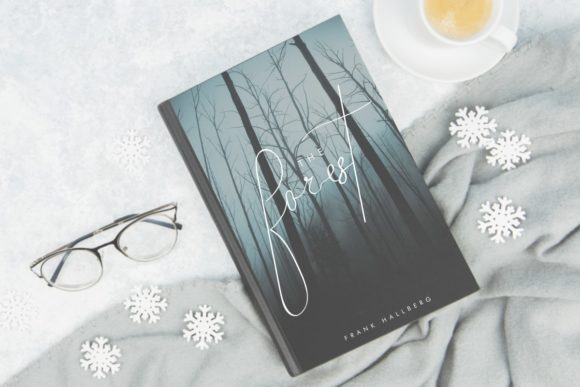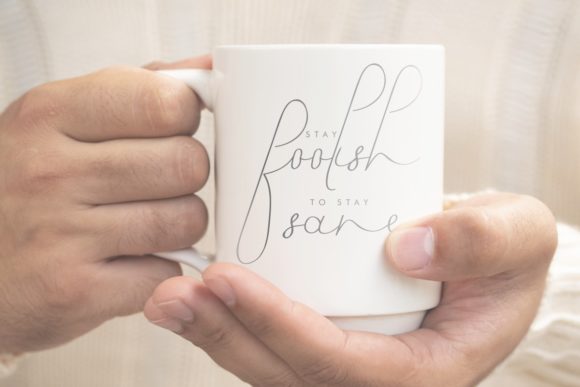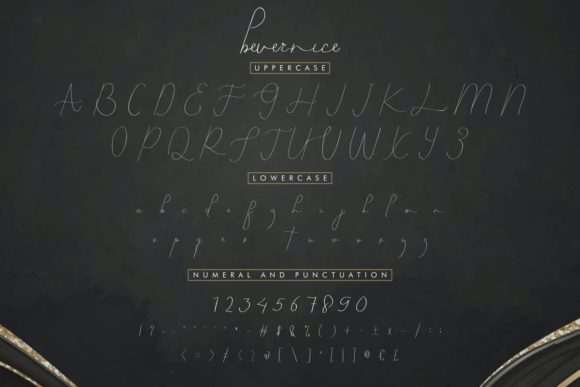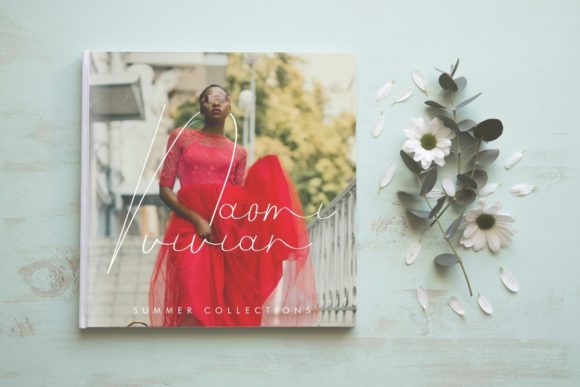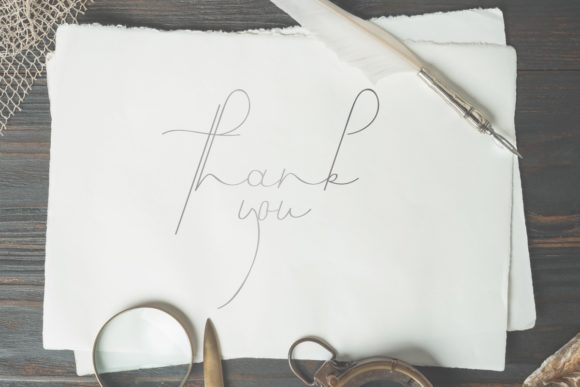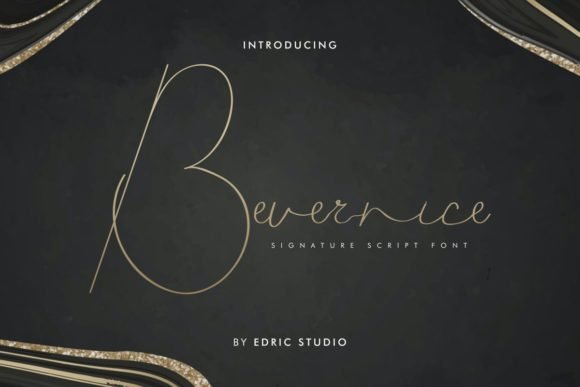
Have you ever been brainstorming a new design concept, and suddenly, a beautiful, delicate font pops into your head, guiding the entire direction of your project? That’s exactly what happened to me when I first discovered the Bevernice Font. Its smooth curves and thin lines instantly transported me to a world of high-end fashion and editorial elegance.
The Bevernice Font is a stunning script font, designed to add a touch of sophistication to any design. With its versatility, it’s perfect for fashion branding, editorial designs, and even wedding invitations. What sets it apart is its delicate nature, making it an ideal choice for designers who want to convey refinement and poise.
Add the Bevernice Font to your next project, and you’ll be amazed at the results. Its value lies in its ability to elevate your designs to a new level of sophistication, making it a must-have for any serious designer.
Bevernice Font Key Features
- Size: 7 styles (Regular, Light, Italic, Bold, Bold Italic, Extra Bold, Extra Bold Italic)
- Unique Characteristics: Elegant, modern design with a unique blend of sophistication and playfulness, suitable for various applications such as logos, headlines, and body text.
- Font Style: Elegant Script, Modern
- Language Support: Multilingual support, including Latin-based languages and Cyrillic-based languages
Bevernice Font Review
Overall, I think the Bevernice Font has some great qualities that make it a solid choice for designers. ✨
- Unique aesthetic: The Bevernice Font has a distinct, elegant feel that sets it apart from other fonts.
- High-resolution quality: The font is designed to look crisp and clear at high resolutions, making it perfect for large-scale designs.
- Wide language support: Bevernice Font supports a wide range of languages, making it a versatile choice for designers working on international projects.
- Limited bold and italic styles: While the font has a good range of weights, the bold and italic styles are somewhat limited, which may not be ideal for designs that require strong emphasis.
- No bold-italic combination: Unfortunately, there is no bold-italic style available, which can make it difficult to create visually appealing headings.
Overall, I think the Bevernice Font is a great choice for designers who want a unique and elegant font for their projects. While it may have some limitations, its strengths make it a solid addition to any design arsenal.
Bevernice Font is ideal for:
2. Business cards and marketing materials.
3. Posters and typography-based designs.
4. Branding and identity design.